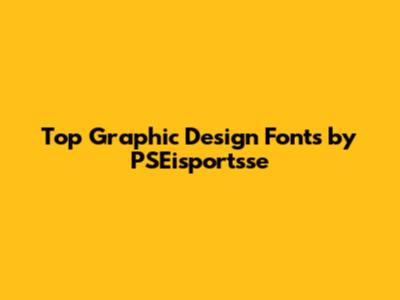
Top Graphic Design Fonts By PSEisportsse
Choosing the right fonts is crucial in graphic design, especially when you're aiming to create a powerful and memorable visual identity. PSEisportsse has a keen eye for design, and understanding their font preferences can give you valuable insights into creating impactful graphics. In this article, we will explore some of the top graphic design fonts favored or inspired by PSEisportsse, discussing their characteristics, best uses, and why they stand out in a competitive design landscape. So, whether you're a seasoned designer or just starting, let's dive into the world of fonts and discover some gems!
Understanding the Importance of Font Choice
Before we delve into specific font recommendations, let's talk about why font choice matters so much. Fonts are more than just letters; they convey emotion, personality, and tone. A well-chosen font can elevate your design, making it more engaging and professional, while a poor choice can detract from your message and confuse your audience. Think of fonts as the voice of your design – you want it to be clear, consistent, and representative of your brand.
The Psychological Impact of Fonts
Different fonts evoke different feelings. Serif fonts, with their small decorative strokes, often feel traditional, authoritative, and trustworthy. Think of classic fonts like Times New Roman or Georgia, often used in formal documents and established publications. Sans-serif fonts, on the other hand, are cleaner and more modern, conveying simplicity and clarity. Arial, Helvetica, and Open Sans are popular choices for websites and contemporary designs. Script fonts mimic handwriting and can add a touch of elegance or playfulness, depending on the style. Display fonts are designed for headlines and titles, offering unique and attention-grabbing designs that can make a statement. Understanding these psychological associations can help you choose fonts that align with your brand's identity and message. For instance, a financial institution might opt for a serif font to project stability and trustworthiness, while a tech startup might prefer a sans-serif font to convey innovation and modernity. It’s all about creating the right impression! Furthermore, the correct font can significantly improve readability and accessibility. Choosing a font that is easy on the eyes ensures that your message is effectively communicated to a wide audience. Factors such as font size, line height, and letter spacing play a crucial role in readability. Testing your font choices across different devices and screen sizes can help you optimize for the best reading experience. Essentially, fonts are a foundational element of visual communication. Therefore, taking the time to select the right ones can dramatically enhance the overall impact of your designs. Great font choices lead to better engagement and help you connect with your audience on a deeper level.
Top Font Recommendations Inspired by PSEisportsse
Now, let's get to the good stuff! Based on PSEisportsse's design aesthetic, here are some top font recommendations that capture a similar vibe. These fonts are versatile, modern, and perfect for a wide range of graphic design projects.
1. Montserrat
Montserrat is a geometric sans-serif font that has gained immense popularity in recent years. Its clean lines and modern feel make it a versatile choice for both headings and body text. Inspired by the urban typography of the Montserrat neighborhood in Buenos Aires, this font exudes a contemporary and approachable vibe. It’s highly readable and looks fantastic in both print and digital formats. The variety of weights available, from thin to black, provides designers with plenty of options to create visual hierarchy and emphasis. Montserrat is an excellent choice for branding, website design, and marketing materials. Its neutrality allows it to pair well with a variety of other fonts, making it a staple in many designers' toolkits. One of the reasons Montserrat is so beloved is its simplicity. It doesn't try to be overly flashy or trendy; instead, it focuses on delivering clear and concise typography that is both functional and aesthetically pleasing. This makes it a reliable choice for projects that require a professional and modern look. Additionally, Montserrat is an open-source font, meaning it is free to use for both personal and commercial projects. This accessibility has contributed to its widespread adoption and makes it an excellent option for designers on a budget. Its broad character support ensures that it can be used in multiple languages, making it a truly global font choice. Whether you're designing a sleek website, a minimalist brochure, or a sophisticated logo, Montserrat is a font that you can rely on to deliver exceptional results. Its versatility and timeless appeal make it a valuable addition to any designer's font library. You can easily see why this font resonates with many designers, offering both elegance and practicality.
2. Raleway
Raleway is another fantastic sans-serif font known for its elegance and versatility. Originally designed as a thin weight font, it has since expanded to include a wide range of weights and styles, making it suitable for various design applications. Raleway's distinctive letterforms and refined appearance make it a popular choice for logos, headings, and body text. Its subtle curves and sophisticated details give it a unique character that sets it apart from other sans-serif fonts. Raleway's versatility extends to both print and digital media, making it a reliable choice for websites, brochures, and presentations. The font's lighter weights are perfect for creating a delicate and airy feel, while the bolder weights can be used to make a strong statement. Its modern aesthetic and excellent readability make it a favorite among designers seeking a balance of style and functionality. The font's open-source license further enhances its appeal, allowing designers to use it freely for both personal and commercial projects. Raleway pairs well with a variety of other fonts, including serif and sans-serif options, giving designers the flexibility to create unique and visually appealing typographic combinations. Whether you're working on a branding project, a website design, or a print campaign, Raleway offers a sophisticated and versatile solution that can elevate your designs to the next level. The font's clean lines and balanced proportions make it easy on the eyes, ensuring that your message is communicated effectively. Moreover, Raleway's extensive character set supports multiple languages, making it a practical choice for international projects. Designers appreciate Raleway for its ability to convey both elegance and simplicity, making it a timeless and reliable addition to their typographic toolkit. If you are looking for a font that is both stylish and functional, Raleway is definitely worth considering.
3. Open Sans
Open Sans is a humanist sans-serif font designed by Steve Matteson. Known for its neutral yet friendly appearance, Open Sans is incredibly readable and works well across various platforms and devices. Its open forms and clean lines make it an excellent choice for body text, ensuring a comfortable reading experience. It’s particularly well-suited for web design due to its excellent legibility on screens. Open Sans is also highly versatile and can be used in headings and subheadings to create a cohesive and professional look. The font family includes a variety of weights, allowing designers to create visual hierarchy and emphasis within their designs. Its neutrality allows it to pair well with a wide range of other fonts, making it a versatile addition to any designer's toolkit. Open Sans is a popular choice for websites, mobile apps, and print materials due to its clarity and simplicity. The font's open-source license makes it freely available for both personal and commercial use, contributing to its widespread adoption. Designers appreciate Open Sans for its ability to convey a sense of openness and approachability, making it a great choice for brands that want to project a friendly and welcoming image. The font's clean and uncluttered design ensures that it doesn't distract from the content, allowing the message to take center stage. Additionally, Open Sans is optimized for readability on screens, making it an ideal choice for digital projects. Whether you're designing a website, a mobile app, or a brochure, Open Sans provides a reliable and versatile typographic solution that can enhance the overall user experience. Its simplicity and clarity make it a timeless and essential font for any designer.
4. Poppins
Poppins is a geometric sans-serif font that has gained popularity for its modern and clean aesthetic. With its balanced proportions and simple letterforms, Poppins is highly readable and versatile. It's a great choice for both headings and body text, making it suitable for a wide range of design projects. Its modern and minimalist design makes it a popular choice for websites, apps, and branding materials. Poppins is also available in a variety of weights, allowing designers to create visual hierarchy and emphasis within their designs. The font's open-source license makes it freely available for both personal and commercial use, contributing to its widespread adoption. Designers appreciate Poppins for its ability to convey a sense of modernity and sophistication. Its clean lines and balanced proportions make it easy on the eyes, ensuring that your message is communicated effectively. Poppins pairs well with a variety of other fonts, including both serif and sans-serif options, giving designers the flexibility to create unique and visually appealing typographic combinations. Whether you're designing a website, a logo, or a brochure, Poppins offers a versatile and stylish solution that can elevate your designs to the next level. The font's extensive character set supports multiple languages, making it a practical choice for international projects. Its geometric design and clean lines make it a timeless and reliable addition to any designer's font library. If you're looking for a font that is both modern and functional, Poppins is definitely worth considering. The overall appeal of Poppins lies in its straightforward and contemporary design.
5. Lato
Lato is a sans-serif typeface designed by Łukasz Dziedzic. Characterized by its semi-rounded details, Lato exudes warmth and friendliness while maintaining a professional appearance. Its versatility makes it a great option for body text, headings, and even logos. Lato is highly legible, ensuring a pleasant reading experience across various platforms and screen sizes. The font family offers a range of weights, from thin to black, giving designers the flexibility to create visual contrast and hierarchy. Lato's open-source license allows it to be freely used for personal and commercial projects, contributing to its widespread popularity among designers. Its modern and approachable aesthetic makes it a popular choice for websites, branding, and marketing materials. Designers appreciate Lato for its ability to convey a sense of warmth and openness, making it an excellent choice for brands that want to project a friendly and inviting image. The font's well-balanced proportions and subtle details contribute to its overall readability and aesthetic appeal. Lato pairs well with a variety of other fonts, allowing designers to create unique and harmonious typographic combinations. Whether you're designing a website, a brochure, or a presentation, Lato provides a versatile and reliable typographic solution that can enhance the overall look and feel of your project. The font's extensive character set supports multiple languages, making it a practical choice for international projects. Its semi-rounded details and friendly appearance make it a timeless and essential font for any designer's toolkit. When a warm and inviting font is needed, Lato is a great option.
Conclusion
In conclusion, selecting the right fonts is crucial for creating impactful graphic designs. Fonts like Montserrat, Raleway, Open Sans, Poppins, and Lato offer versatility, readability, and a modern aesthetic, making them excellent choices for a wide range of projects. By understanding the characteristics and best uses of these fonts, you can elevate your designs and effectively communicate your message. Whether you're designing a website, a logo, or marketing materials, these fonts will help you create visually appealing and engaging designs. Remember to consider the psychological impact of fonts and choose options that align with your brand's identity and message. Happy designing, guys! PSEisportsse would surely approve!